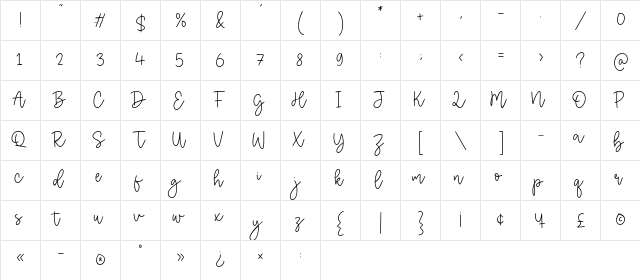
Guardian Circus Regular
Design Context for Guardian Circus Typeface
Guardian Circus is a composed and adaptable typeface that performs quietly and consistently across a wide range of design contexts.